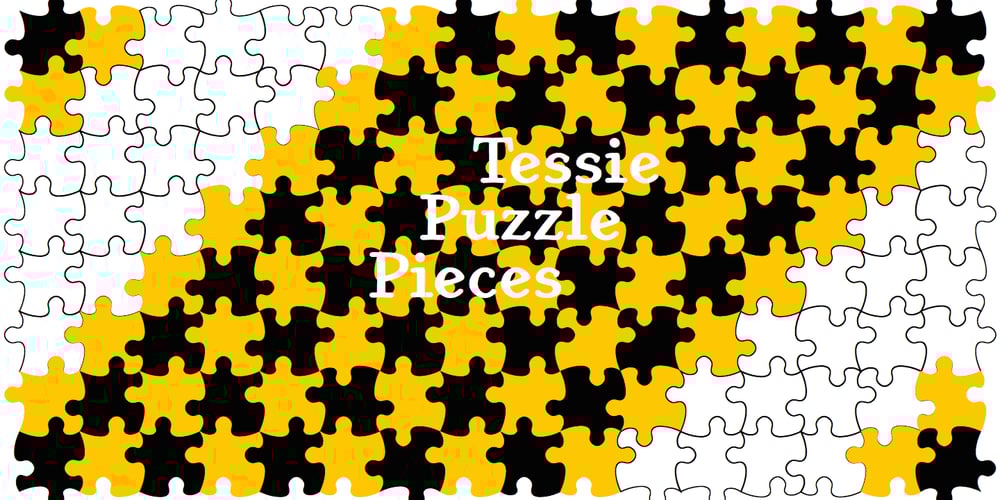
TessiePuzzlePieces
TessiePuzzlePieces font
TessiePuzzlePieces Font Family was designed by Robert Schenk and published by Ingrimayne Type. TessiePuzzlePieces contains 2 styles and family package options. After exploring tessellations for several years, I decided to see how many ways I could tessellate puzzle pieces. I began with a square template and used the same asymmetrical shape for all four edges. By flips or rotation each edge could be fitted in four ways. Eventually I discovered that, given this way of forming tiles, there were 15 distinct shapes that tessellate and these shapes can take a total of 96 orientations. (A note in the November 2016 issue of Mathematical Gazette has the proof for the 15 shapes.) This typeface contains those 15 shapes and 96 orientations. A pdf note here shows some of the tilings possible using only one shape in a pattern. An unlimited number of patterns are possible if shapes are mixed. There are two members of the family, a solid style that must have different colors when used and an outline style. They can be used separately or they can be used in layers with the outline style on top of the solid style. For rows to align properly, leading must be the same as point size. (Earlier tessellation fonts from IngrimayneType, the TessieDingies fonts, lack a black or filled version so cannot do colored patterns.)